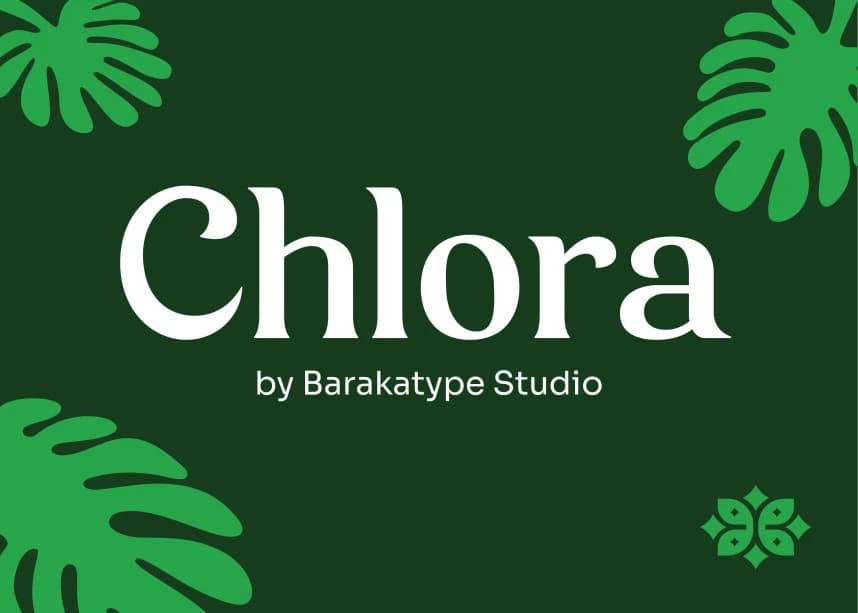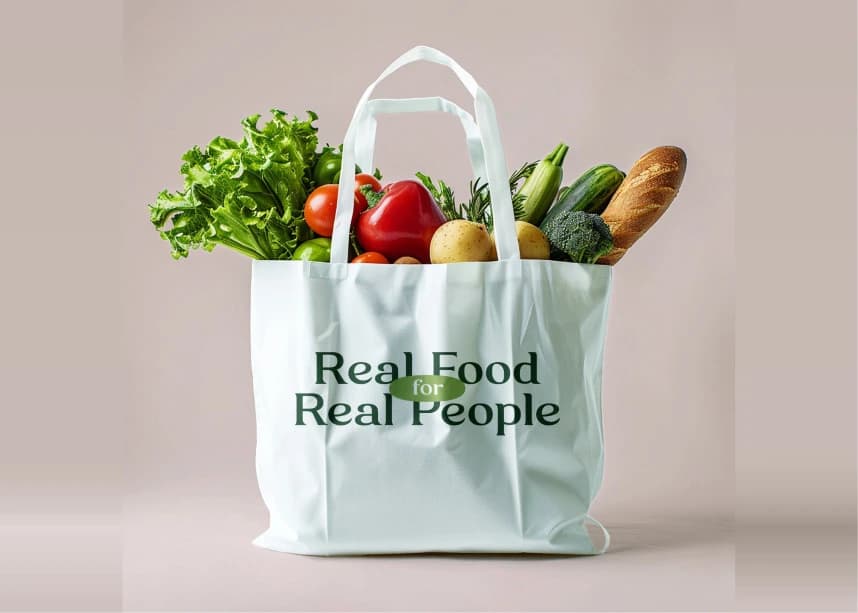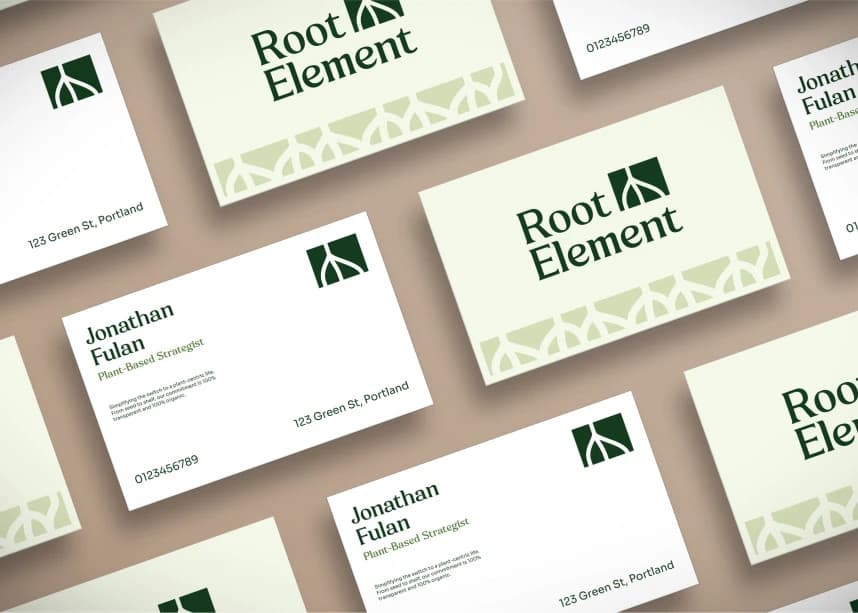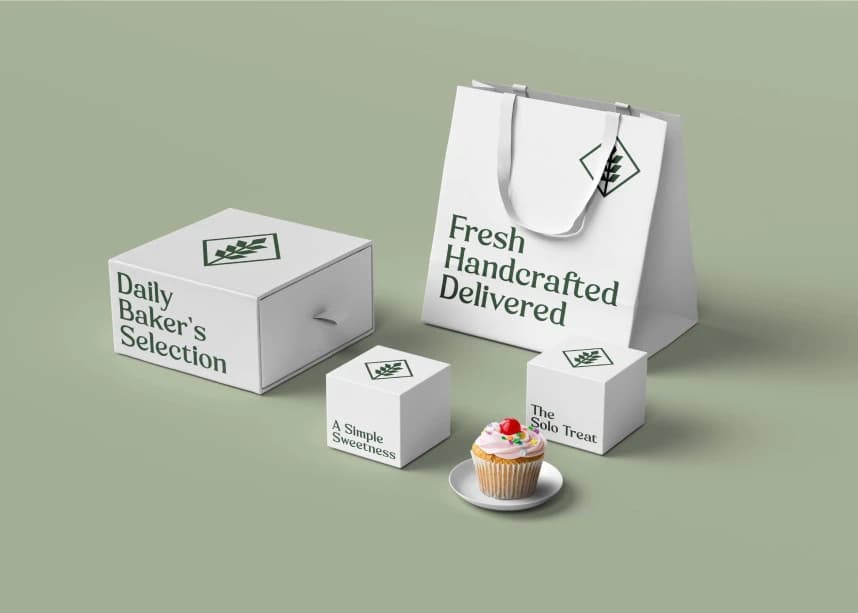
Chlora Font
Chlora Font - A soulful, nature-inspired serif that blends organic warmth with contemporary craft. Its soft curves and distinctive botanical-influenced terminals evoke a sense of natural growth and artisanal quality.